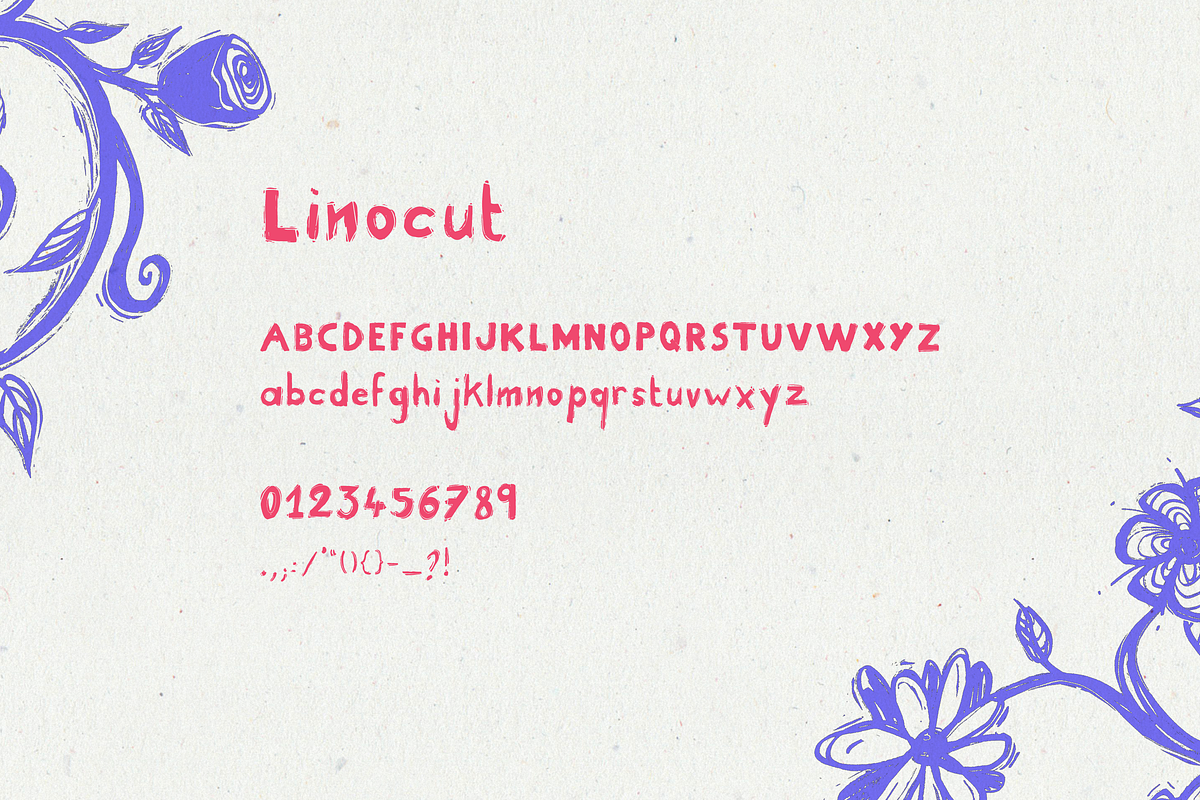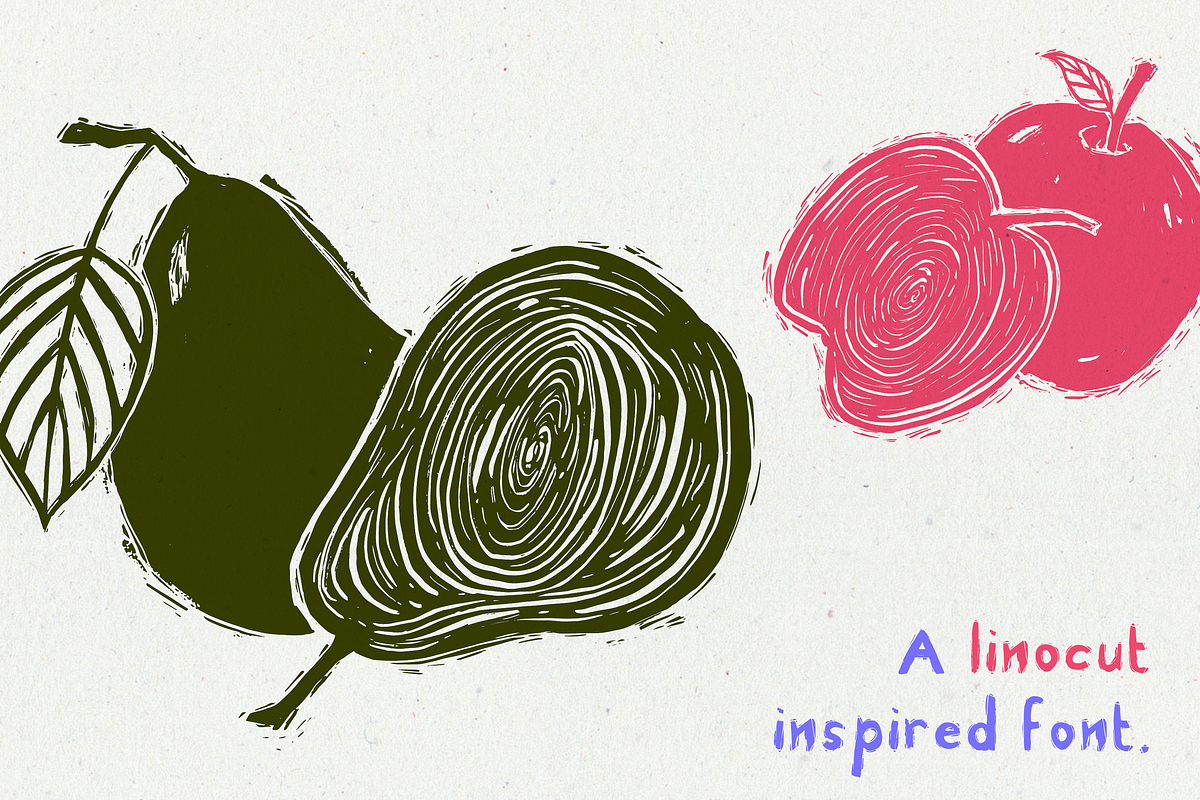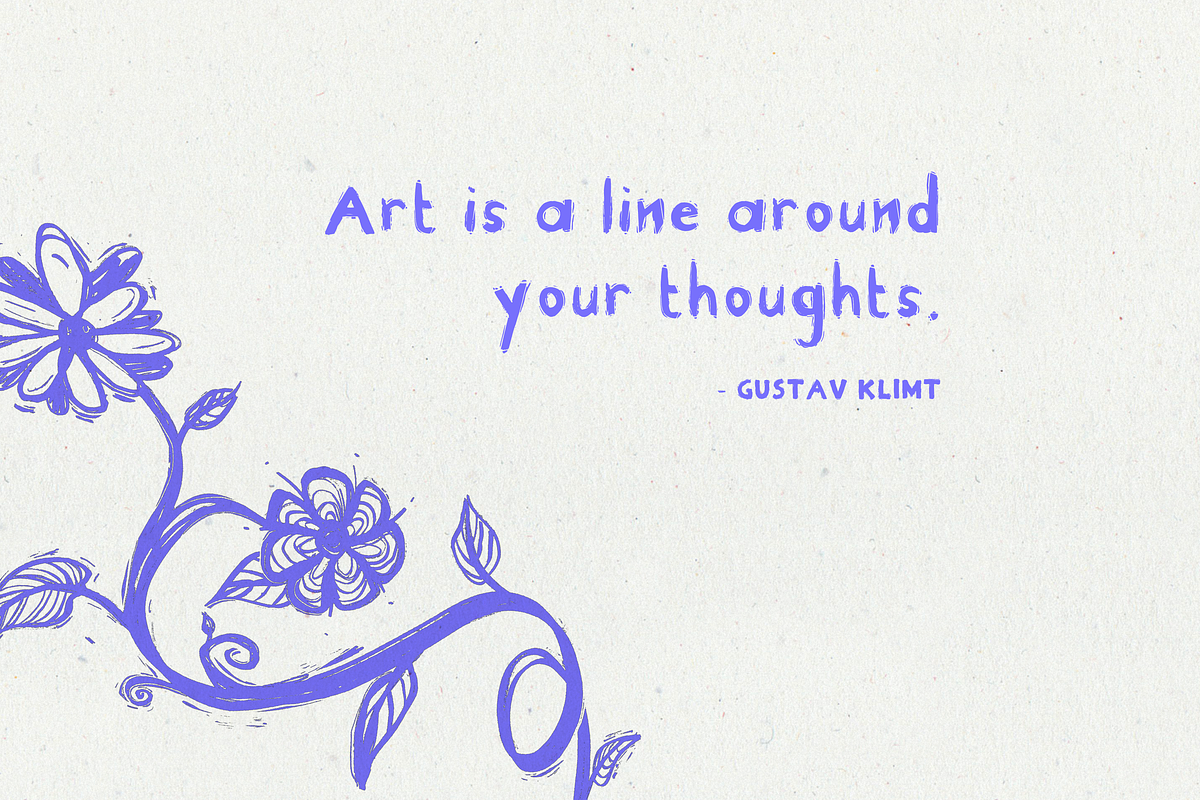
Linocut Handmade Script Font Kid
"Linocut" is a hand-cut font I created because I couldn't find a convincing linocut-inspired typeface ! I hope you like it !
For example, you can use this font for:
– typography designs – text on illustrations – print text on various objects such as cards, mugs, t-shirts, notebooks, wallpaper, wedding invitations, birthday cards, etc
& more !